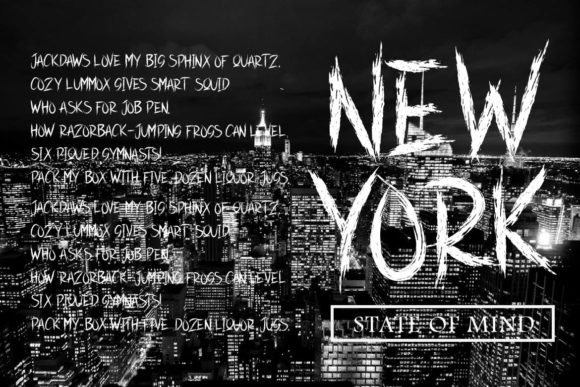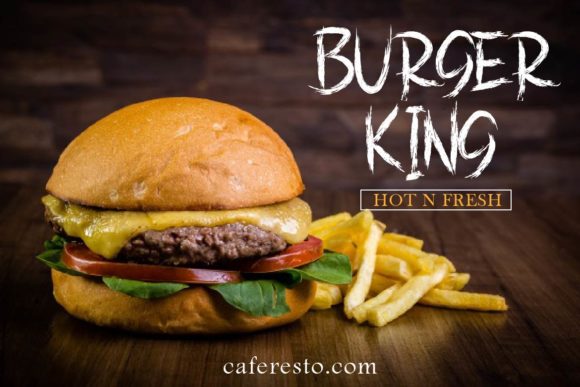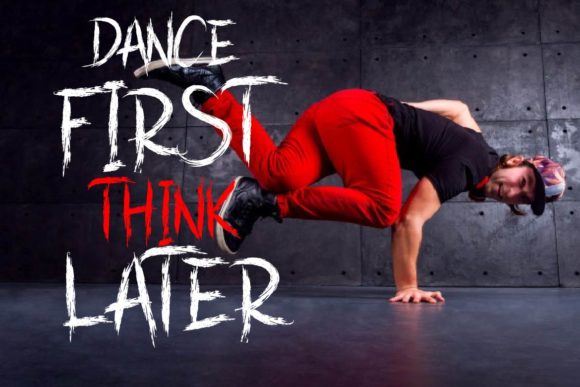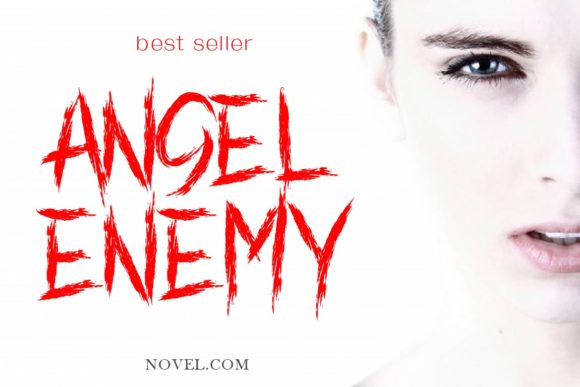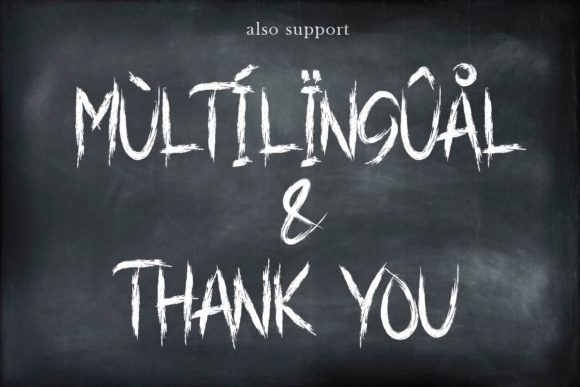
Unleash Your Creativity with Blackburn Font: The Ultimate Display Font for Standout Designs
In the world of design, fonts play a crucial role in conveying the message and aesthetic of a project. With thousands of fonts available, finding the perfect one that makes your design stand out can be a daunting task. However, if you’re looking for a font that exudes a rough and edgy vibe, look no further than the Blackburn Font. This display font is designed to transform any design project into a true standout, and its unique charm is sure to inspire.
What is Blackburn Font?
Blackburn Font is a display font that boasts a rugged and rough texture, making it perfect for designs that require a bold and edgy look. Its unique design features irregular shapes and a distressed finish, giving it a one-of-a-kind charm that sets it apart from other fonts. Whether you’re working on a branding project, a poster, or a website, Blackburn Font is sure to make a statement.
Key Features of Blackburn Font
- Rough and Edgy Texture: Blackburn Font features a rough and edgy texture that gives it a unique and distressed look.
- Display Font: Designed specifically as a display font, Blackburn Font is perfect for headlines, titles, and other large-format text.
- Unique Charm: The font’s irregular shapes and distressed finish give it a one-of-a-kind charm that’s sure to inspire.
- Highly Versatile: Blackburn Font can be used in a variety of design projects, from branding and advertising to web design and more.
How to Use Blackburn Font in Your Designs
Blackburn Font is incredibly versatile and can be used in a variety of design projects. Here are a few ways you can incorporate it into your designs:
Branding and Advertising
Blackburn Font is perfect for branding and advertising projects that require a bold and edgy look. Use it to create eye-catching logos, posters, and billboards that are sure to grab attention.
Web Design
Blackburn Font can also be used in web design to add a touch of edginess to your website. Use it for headings and titles to create a bold and eye-catching look.
Print Design
Blackburn Font is also suitable for print design projects, such as brochures, flyers, and business cards. Its rough and edgy texture will add a unique touch to your designs.
Tips for Pairing Blackburn Font with Other Fonts
When pairing Blackburn Font with other fonts, it’s essential to choose fonts that complement its bold and edgy look. Here are a few tips:
- Pair with Sans-Serif Fonts: Pair Blackburn Font with sans-serif fonts, such as Arial or Helvetica, to create a clean and modern look.
- Pair with Script Fonts: Pair Blackburn Font with script fonts, such as Pacifico or Great Vibes, to create a bold and elegant look.
- Experiment with Font Sizes: Experiment with different font sizes to create a visually appealing contrast between headings and body text.
Blackburn Font is a unique and versatile display font that’s perfect for designers and crafters looking to add a touch of edginess to their designs. Its rough and edgy texture, combined with its highly legible design, makes it an excellent choice for a wide range of design projects. Whether you’re working on a branding project, a website, or a print design project, Blackburn Font is sure to inspire and help you create standout designs.
So, get inspired by the unique charm of Blackburn Font and take your designs to the next level. With its bold and edgy look, Blackburn Font is sure to make your designs stand out from the crowd.